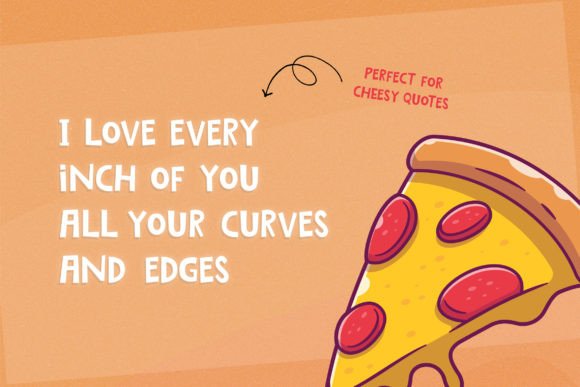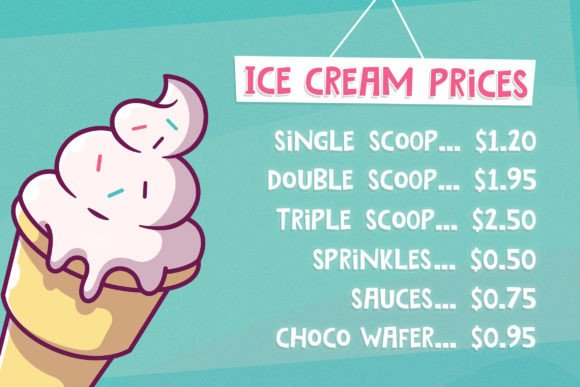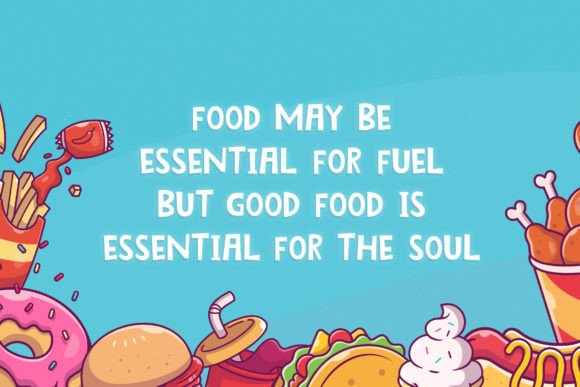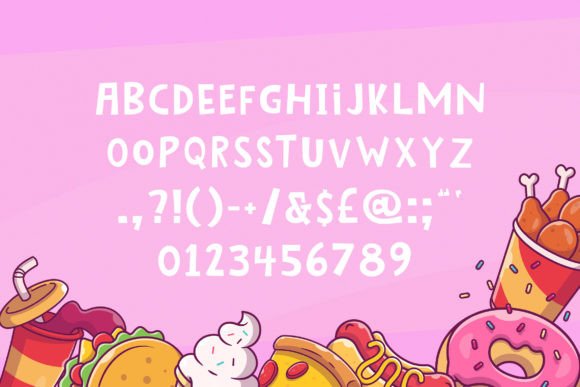
Getting Creative with Foodie Friends Font
Remember that moment when you stumbled upon the perfect font for a project, and everything just clicked? For many designers, this moment is a game-changer. It’s the spark that ignites a creative fire, and before you know it, you’re swept up in a whirlwind of ideas and inspiration.
One such font that has captured the hearts of designers and crafty enthusiasts alike is the Foodie Friends Font. This sweet and joyful handwritten font is a treat to work with, offering a cute and playful style that’s perfect for a wide range of crafty ideas. Whether you’re designing a recipe book, a food blog, or a social media post, Foodie Friends Font is sure to bring a smile to your face and a touch of whimsy to your designs.
Key Features of Foodie Friends Font
- Character Set: The font includes a comprehensive set of characters, including uppercase and lowercase letters, numbers, punctuation marks, and special characters, making it suitable for various culinary and food-related applications.
- Unique Characteristics: The font features a playful, handwritten style with bold and expressive lines, making it perfect for adding a personal touch to food-related content, such as recipes, menus, and cooking blogs.
Foodie Friends Font Review
I recently had the chance to play around with the Foodie Friends Font, and I have to say, it’s a real treat. The design is vibrant and fun, perfect for any food-related project. ✨ The font’s playful nature makes it great for titles and headings, and the variety of characters adds a nice touch of personality.
One of the standout features of this font is its versatility. It works well in a range of sizes, from small to large, and can easily be paired with other fonts to create a unique look. ✨ The font’s bold lines and rounded edges give it a friendly, approachable feel that’s sure to appeal to anyone who loves food.
While I love the Foodie Friends Font, there are a few limitations to consider:
- ⚠️ The font can be a bit difficult to read in certain situations, such as when the text is too small or the background is too bright.
- ⚠️ The font’s playful nature can also make it feel a bit childish or gimmicky, which may not be suitable for all projects.
Overall, I think the Foodie Friends Font is a great addition to any designer’s toolkit. It’s fun, versatile, and perfect for any project that needs a little extra personality. With a few tweaks to address its limitations, I think this font has the potential to become a real favorite among designers and foodies alike.
Use the Foodie Friends Font for creative food-related designs, menus, and recipes. It’s perfect for branding, social media, and print materials. Experiment with different font styles and sizes to add visual interest.
The Foodie Friends Font is ideal for:
- Cookbooks and recipe cards
- Food blogs and social media
- Restaurant and cafe menus
- Food-related marketing materials